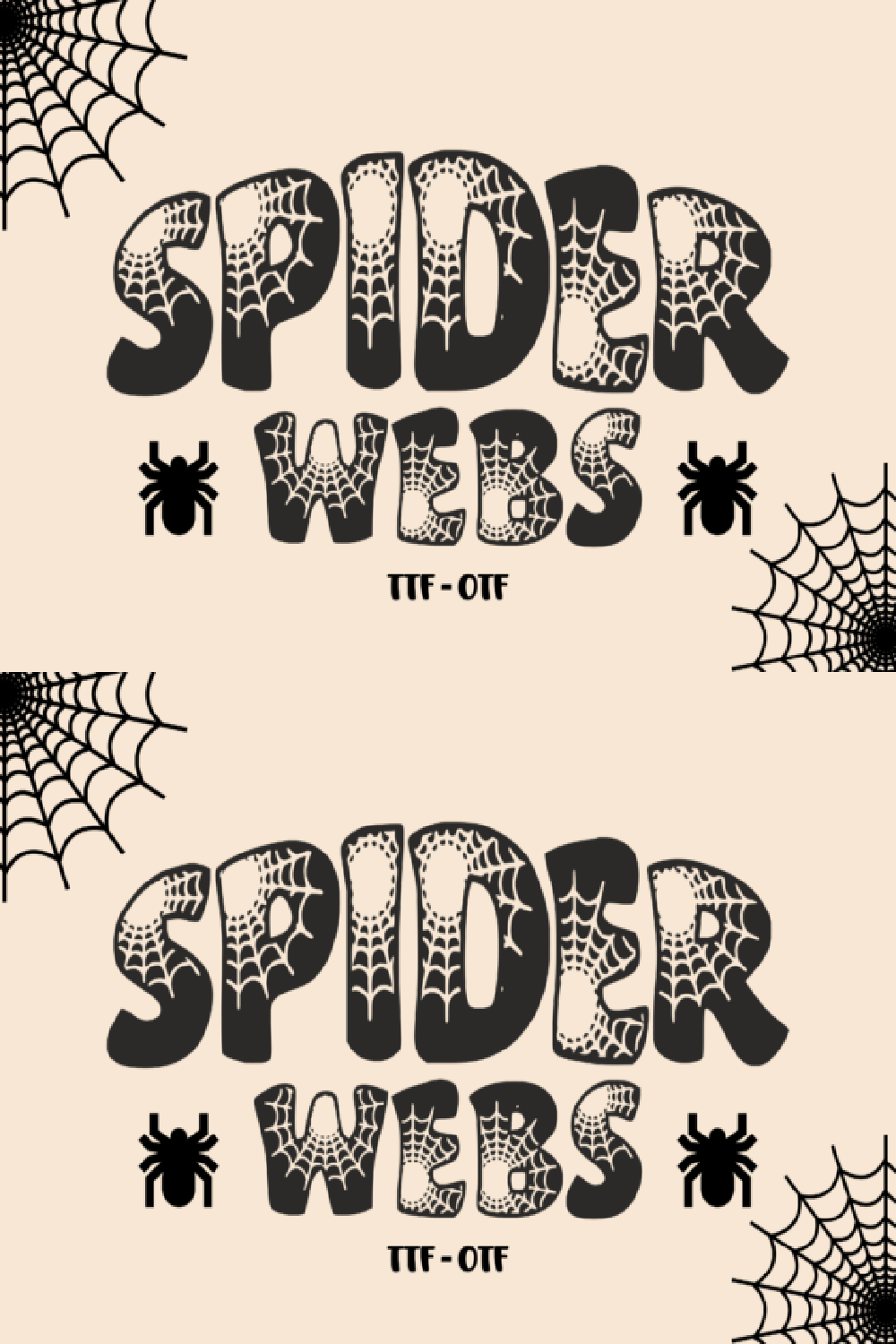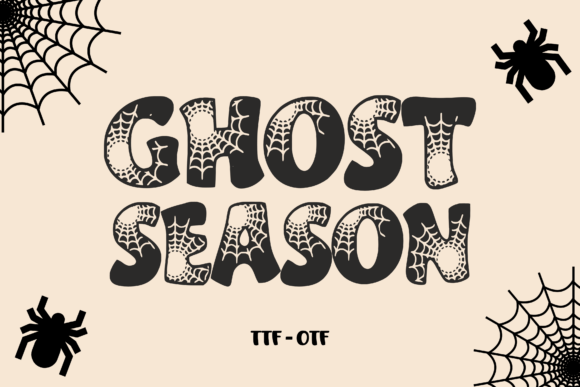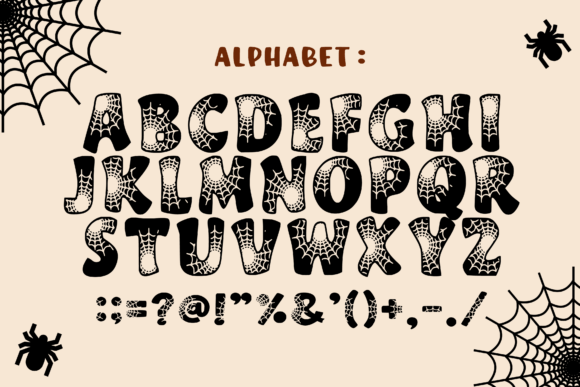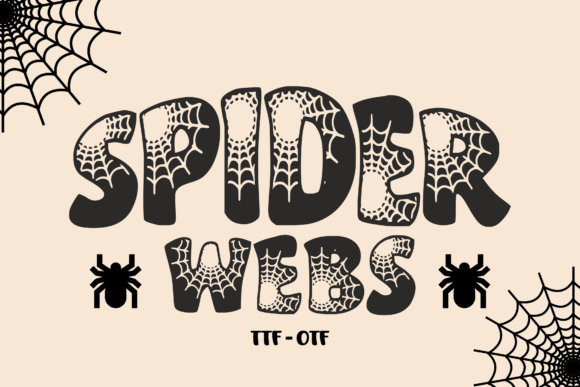
Spider Webs Font
About the Spider Webs Font
Make a bold statement with Spider Webs Font, a powerful and memorable font. Introducing Spider webs – a charming and spooky decorative font that will add a playful touch to designs aimed at children. Enhance the charm of your creations – be it unique t-shirt prints, adorable baby clothes, nursery decor, charming digital designs, fun cards and more. This font combines creativity and fun into a font that transforms your designs into works of art! Feel the magic it brings, injecting life and joy into every design it touches. Embrace the extraordinary; explore the wonders of the Spider webs font!